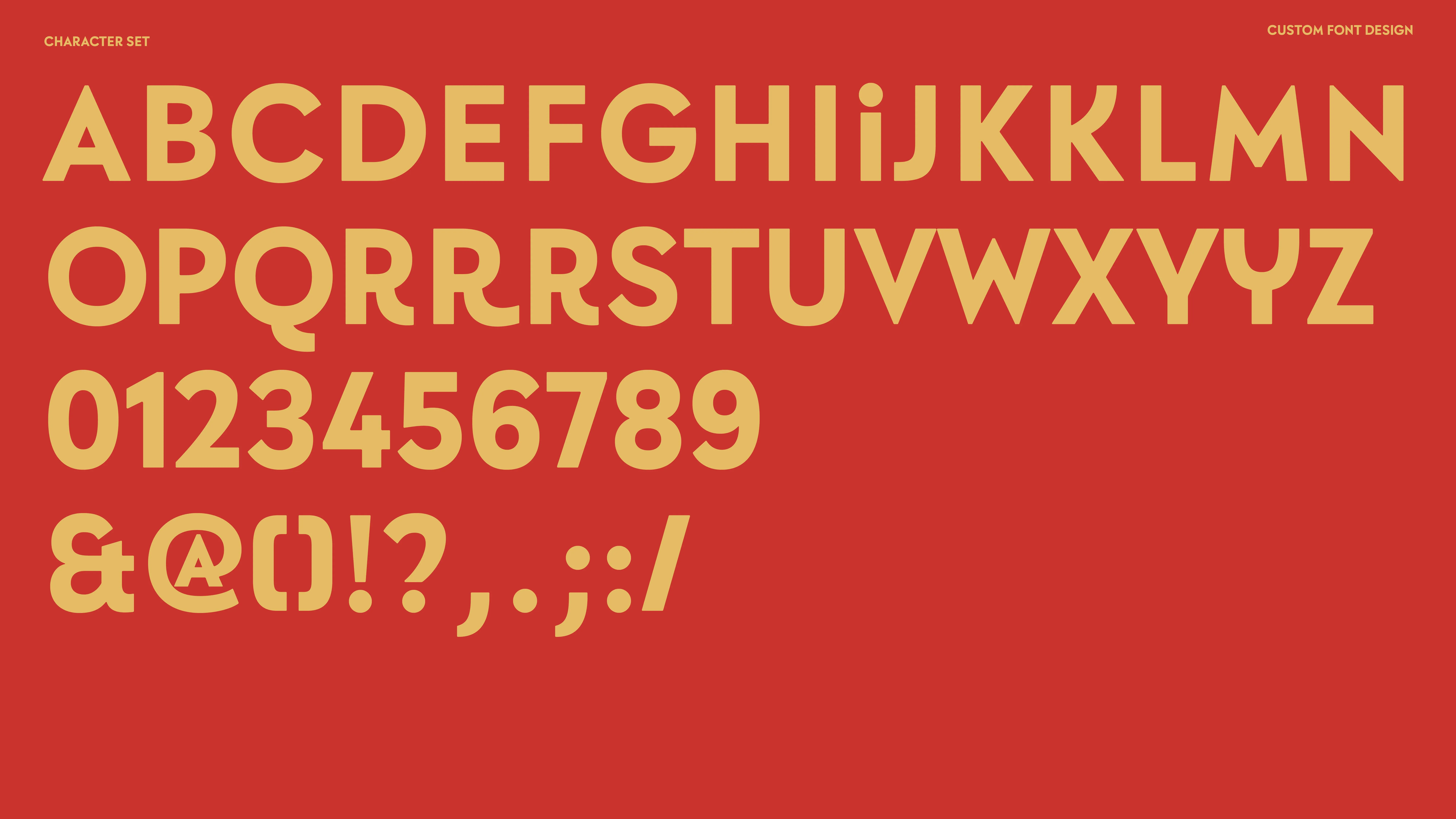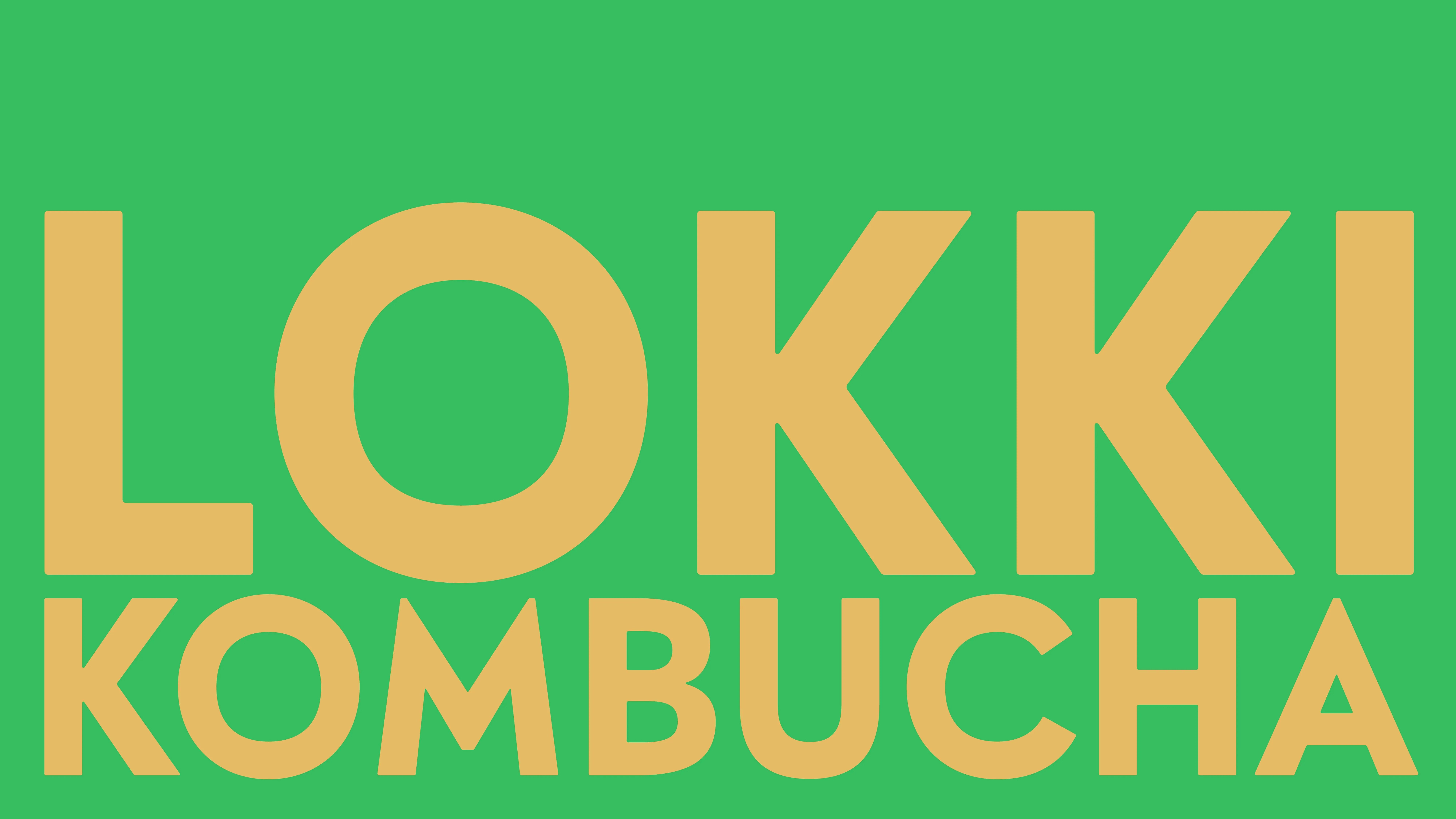
Custom Font: Lokki
New brand, new font
A bold font design
Mid 2021, we were contacted by Ludovic from Studio Blackthorns to design a custom font for a branding project, tailored for Lokki. A Kombucha brand based in the south of France.
Ludovic worked on a whole brand strategy and clever graphic identity bringing Lokki's spirit into a whole new way of showcasing their work. When working on something as specific, as precise, as a brand design, a custom font is usually the right choice to go with every ingredients you'll use in a complex graphic chart.
As such, we worked hands in hands with Studio Blackthorns' vision for Lokki in order to design a custom font based on some core values of the company. Bold, Close to its customer, strong beliefs and core values in the way their drink is produced. Lokki is also mischievous, in the best way possible, so the font has to show all of these characteristics in its design while maintining high legibility in large and medium sizes.
We designed a font with a strong character structure. The roundness if shaped with smart cut edges giving a nice optical trick. Some glyphs have some unusual shapes like the Y, alternate versions of R & K with a "horn" like feature.
One of the best part of designing custom fonts is seeing them in action. While the showcase on this article is but a very expressive serie designed by Anouck Elbaz for the sake of this article, we're very confident in seeing Studio Blackthorns art direction come to life using this tailored font!